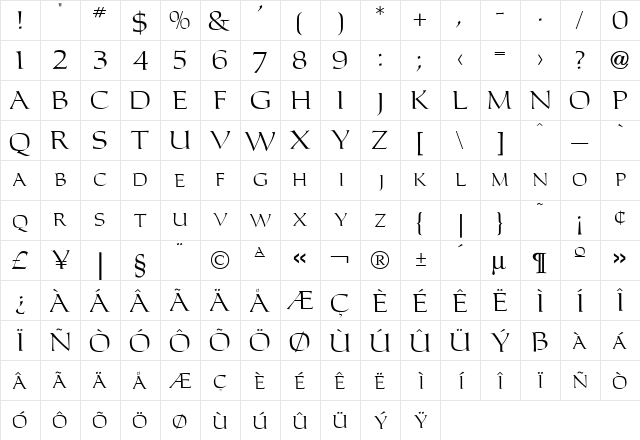
Dumount Regular
Design Context for Dumount Typeface
Dumount offers clean, dependable letterforms without strong stylistic allegiance, making it a practical choice for designers who need flexibility.
Pro Tip: Pair Dumount with a font of contrasting weight or personality to build a more expressive typographic hierarchy.